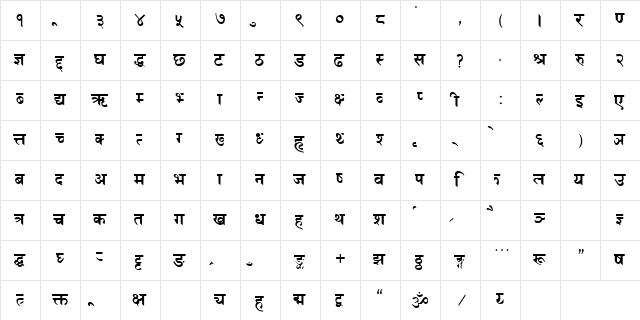
Himalb Regular
Design Context for Himalb Typeface
Himalb takes a measured approach to typography — its balanced proportions and neutral character make it a reliable workhorse for both digital and print work.